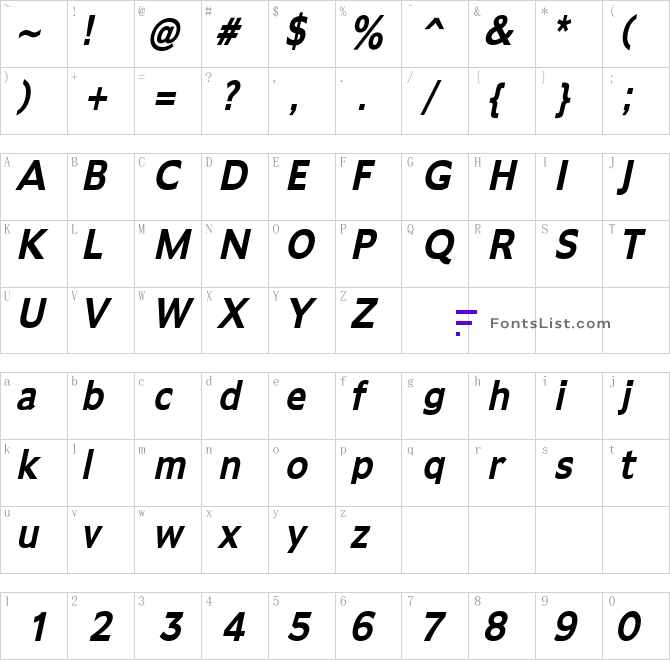
- Font Name:Adams Condensed
Adams-Condensed-Bold-Italic.ttf is a very beautiful artistic font, Adams-Condensed-Bold-Italic.ttf is widely used in the design and printing of various books and pictures,Adams-Condensed-Bold-Italic.ttf has a strong visual impact,Adams-Condensed-Bold-Italic.ttf is a commonly used font in newspapers, magazines and books, and is used in posters, e-commerce Poster design, store design, logo design, font design and other fields.Adams-Condensed-Bold-Italic.